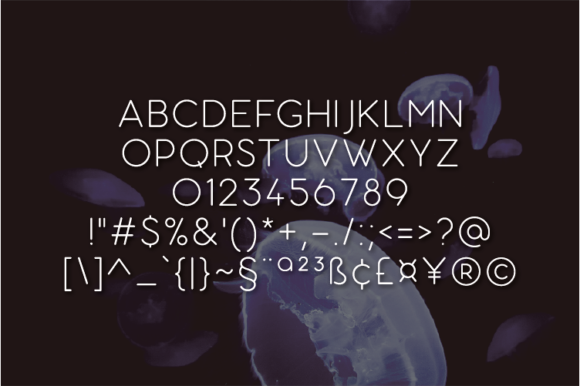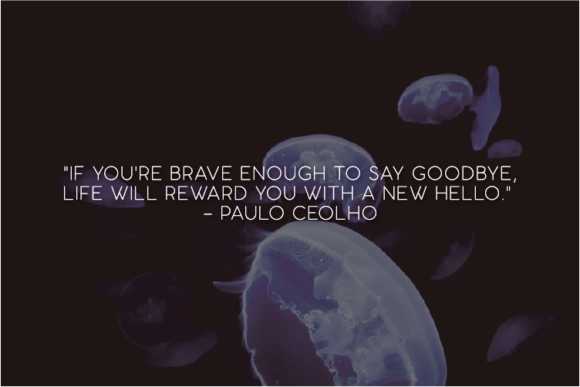
Introduction to Koveler Font
As designers, we’ve all been there – staring at a blank canvas, trying to find the perfect font to bring our creative vision to life. But sometimes, the perfect font can be hiding in plain sight. Enter the Koveler Font, a sleek and modern sans serif font that’s sure to elevate your next project. Its minimalist design and thin lettering make it a versatile choice for a wide range of creative projects.
Whether you’re working on a display, header, invitation, or wedding design, the Koveler Font is a valuable resource that can help you stand out from the crowd. With its high-quality design and transparent background, it’s the perfect addition to any creative project. And the best part? It’s available for free download, making it an accessible design resource for designers of all levels.
Key Features of Koveler Font
- High-quality design: Koveler Font is a professional, well-crafted font suitable for creative projects requiring a premium look.
- Unique characteristics: Koveler Font features a unique blend of modern and vintage elements, making it perfect for creative projects that require a touch of elegance and sophistication.
- Perfect for creative projects: Koveler Font is ideal for use in graphic design, digital art, and other creative projects where a high-quality font is essential.
Honest Review: Koveler Font
I recently had the chance to work with the Koveler Font, and I must say it’s a great addition to any designer’s toolkit. The font is offered as a free download, which is always a welcome bonus. Upon closer inspection, I found that the Koveler Font boasts a high-quality design that’s perfect for creative projects.
One of the things that stood out to me was the transparent background option, which allows for a high degree of flexibility when it comes to layering and compositing. This feature is a game-changer for designers who need to create complex compositions.
However, there are a few limitations to keep in mind: ⚠️
- No bold or italic variations available
- Some users may find the font a bit too minimalist
Overall, I’m impressed with the Koveler Font. It’s a solid design resource that’s well-suited for a wide range of creative projects. While it may not offer every possible feature or variation, it’s a great starting point for designers who need a high-quality font with a transparent background.
Tips for Getting the Most Out of Koveler Font
To get the most out of the Koveler Font, use it on a transparent background to create a high-quality design. You can also use the font in combination with other design resources to create a unique and creative project.
The Koveler Font is a versatile font that can be used in a variety of creative projects, including logos, brochures, and social media graphics. Its high-quality design makes it a great choice for both personal and professional projects.